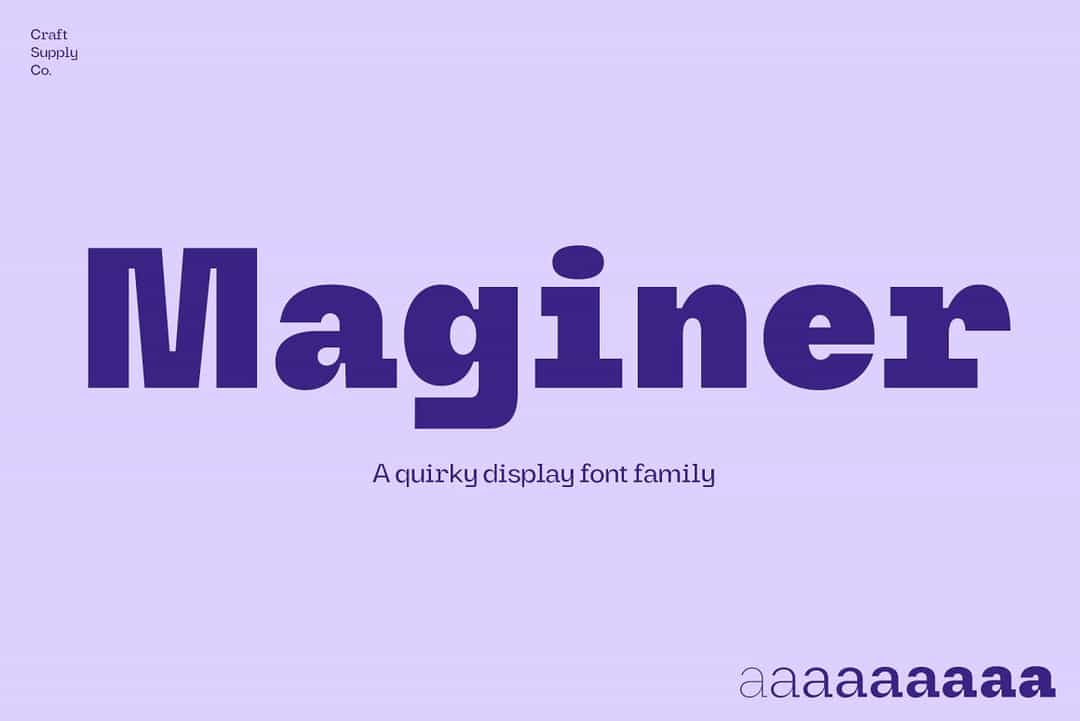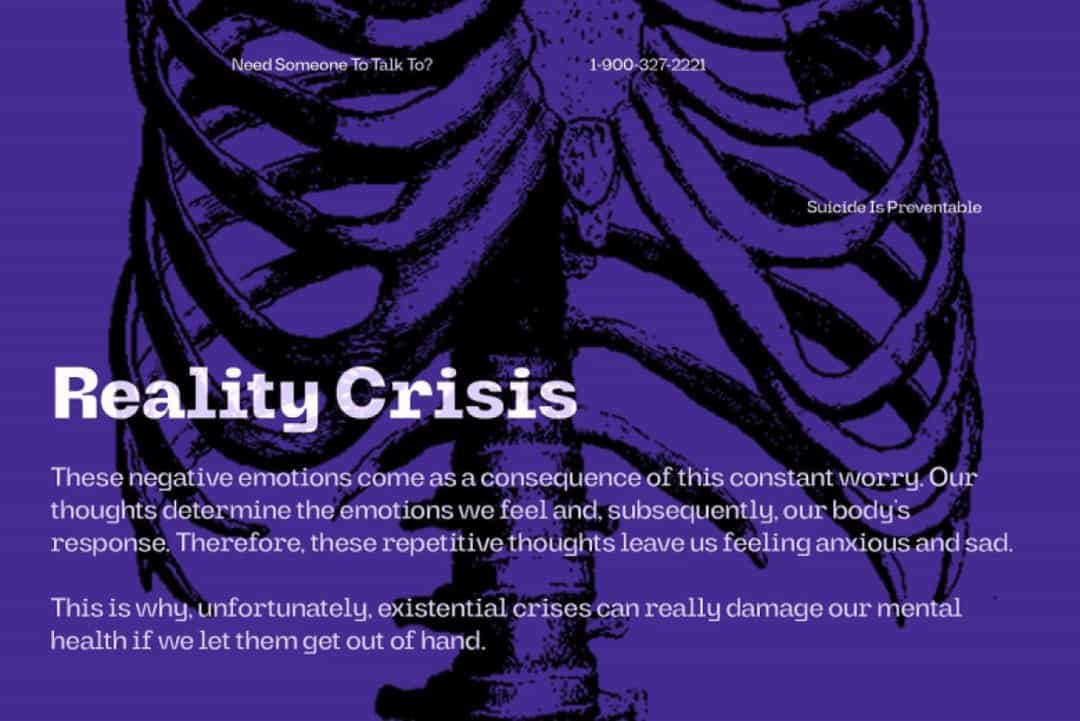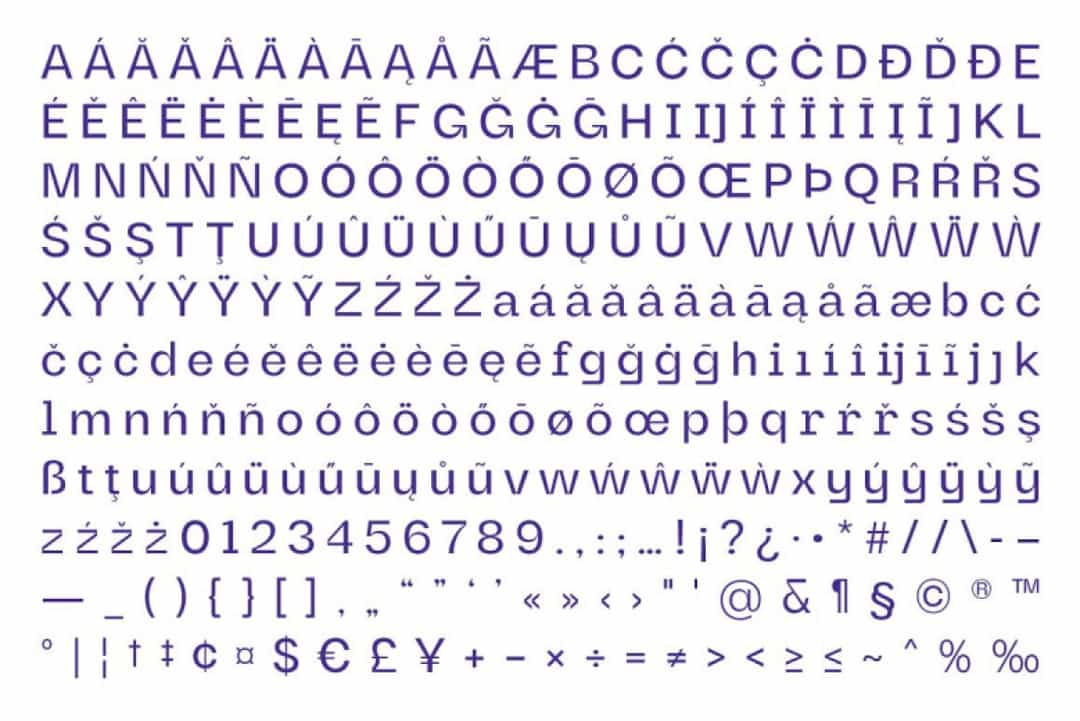
Maginer Display Font is an eye-catching example of unconventional yet formal fonts that will leave a powerful impactful statement in any design project. Ideal for display and text type use, Maginer is perfect for both large and small text needs.